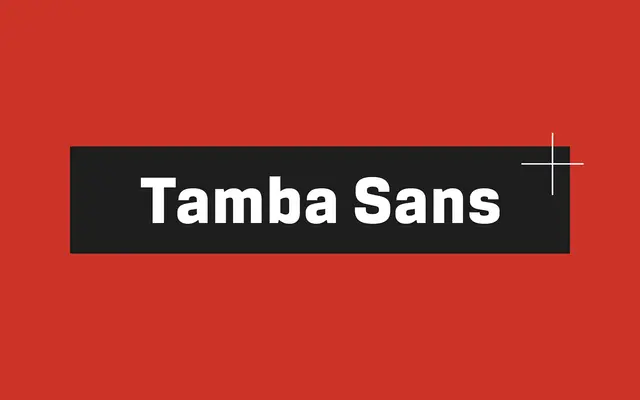
Tamba Sans
A condensed geometric sans in seven weights with a squarish structure, designed to hold attention without sacrificing legibility at large sizes.
Built around a bold, slightly squarish geometry, Tamba Sans sits somewhere between a display grotesque and a pure geometric sans. Seven weights run from Thin to Black with matching italics, giving the family enough range for digital interfaces, branding and editorial work. Latin Extended and basic Cyrillic coverage broadens its reach across European markets.
Described explicitly as geometric sans-serif with a condensed, squarish structure; strong geometric construction is the defining characteristic rather than humanist or grotesque traits.